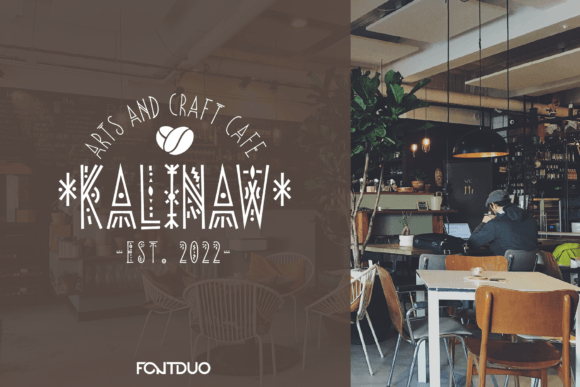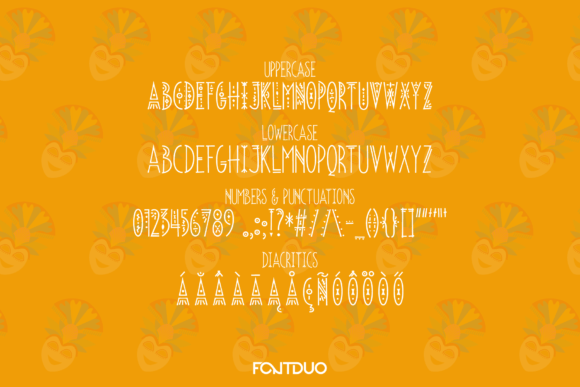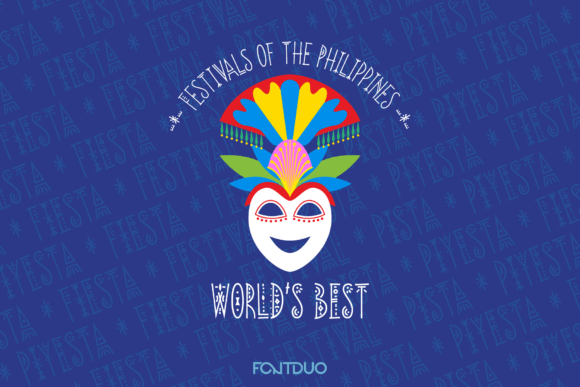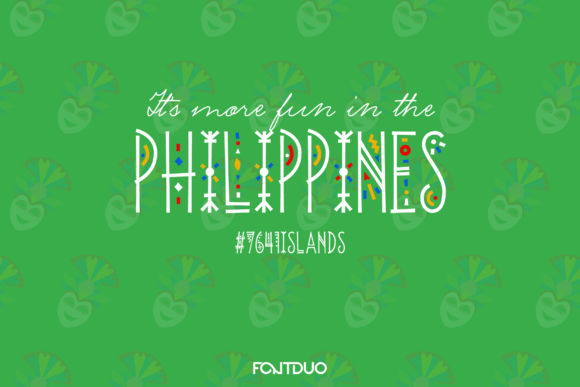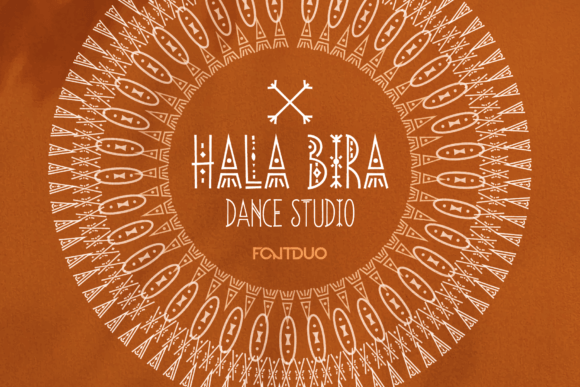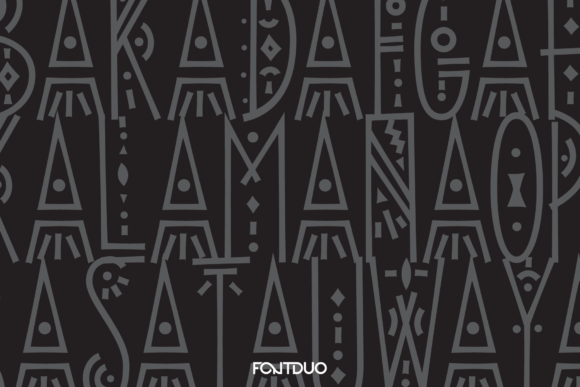
Introduction to Pista Font Font
Fonts play a crucial role in design, and the Pista Font font is a typeface that brings both character and versatility to any project. Whether you’re working on a branding project, a website, or a print design, the Pista Font font offers a unique style that can elevate your work.
Pista is an ethnic-style display typeface inspired by Philippine festivals.
Pista or piyesta (fiesta) means festival or holiday Its cheerful vibe is perfect for creating various cute, festive designs.
Key Features of Pista Font Font
Why Choose Pista Font Font?
The Pista Font font is more than just a typeface – it’s a design tool that helps you communicate your message with style and clarity. Its unique character set and versatile design make it suitable for a wide range of applications, from elegant invitations to bold headlines.
With its carefully crafted letterforms and balanced proportions, the Pista Font font ensures readability and visual appeal across all mediums.
What makes Pista Font font special?
The Pista Font font stands out with its unique design, exceptional readability, and versatility across various design applications.